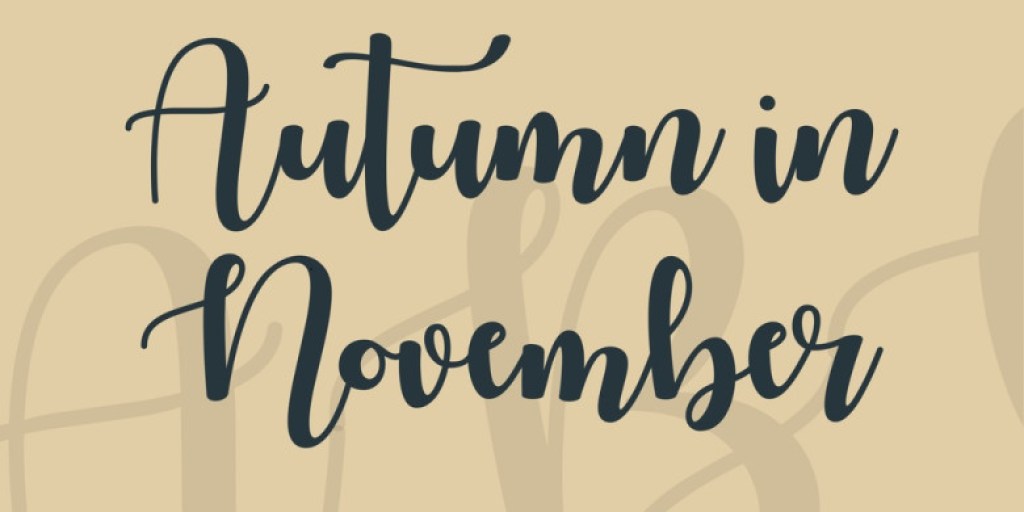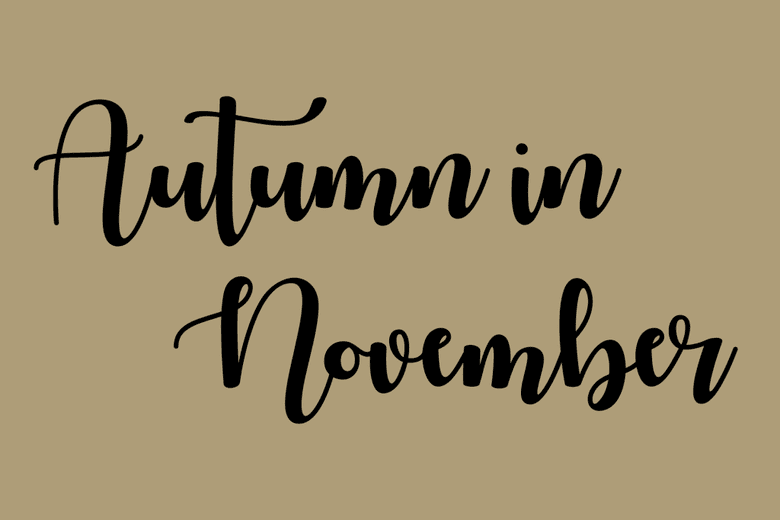
This is super easy to use by following simple steps. Autumn in november is a script font by misti's fonts, first seen on makerstype on october 2, 2020.
Autumn in november is the perfect font for all your fun designs.autumn in november was designed by mistis fonts.the author works at company mistis fonts.the subfamily is regular. The explanation starts with unicode; Are you copying and pasting an actual font?